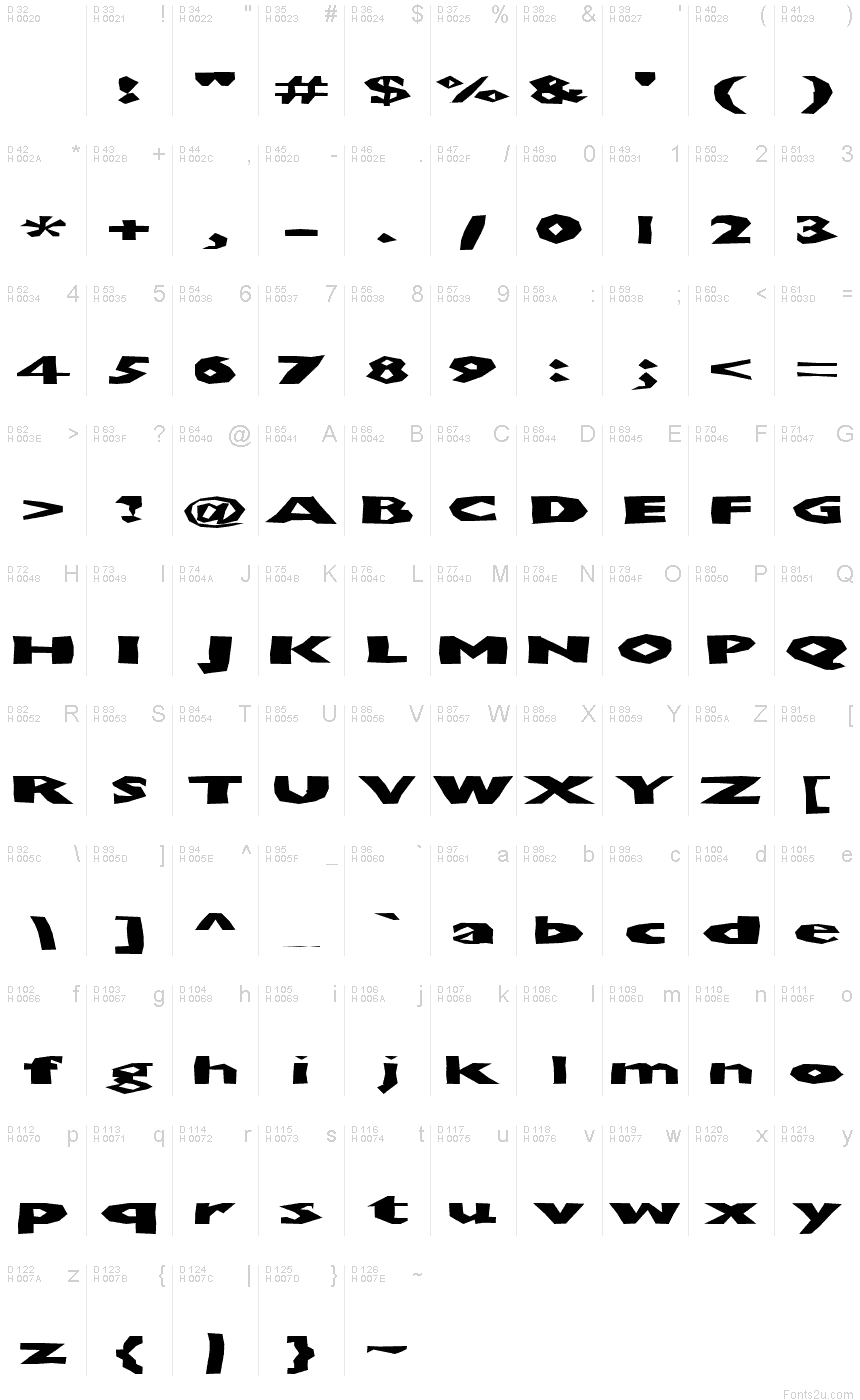
ChunkoBlockoSoopaDark
ChunkoBlocko Soopa Dark font by Omega Font Labs is a free comic display typeface that crashes onto the page like a hand-cut block of ink. Its chunky, jagged letters lean forward with a rough, street‑art energy, as if they’ve been hacked out with a marker and a shaky ruler. The tight spacing and uneven angles create a loud, stomp‑heavy rhythm that instantly grabs attention and doesn’t let go.
Using ChunkoBlocko Soopa Dark, your titles feel noisy, rebellious, and a little bit chaotic—in the best way. This free font shines on comic covers, zines, gig posters, skate or graffiti branding, game logos, and YouTube thumbnails that need a punch of attitude. Keep it big and bold, and pair it with a clean, simple sans serif for body text so the wild edges stay readable and striking.